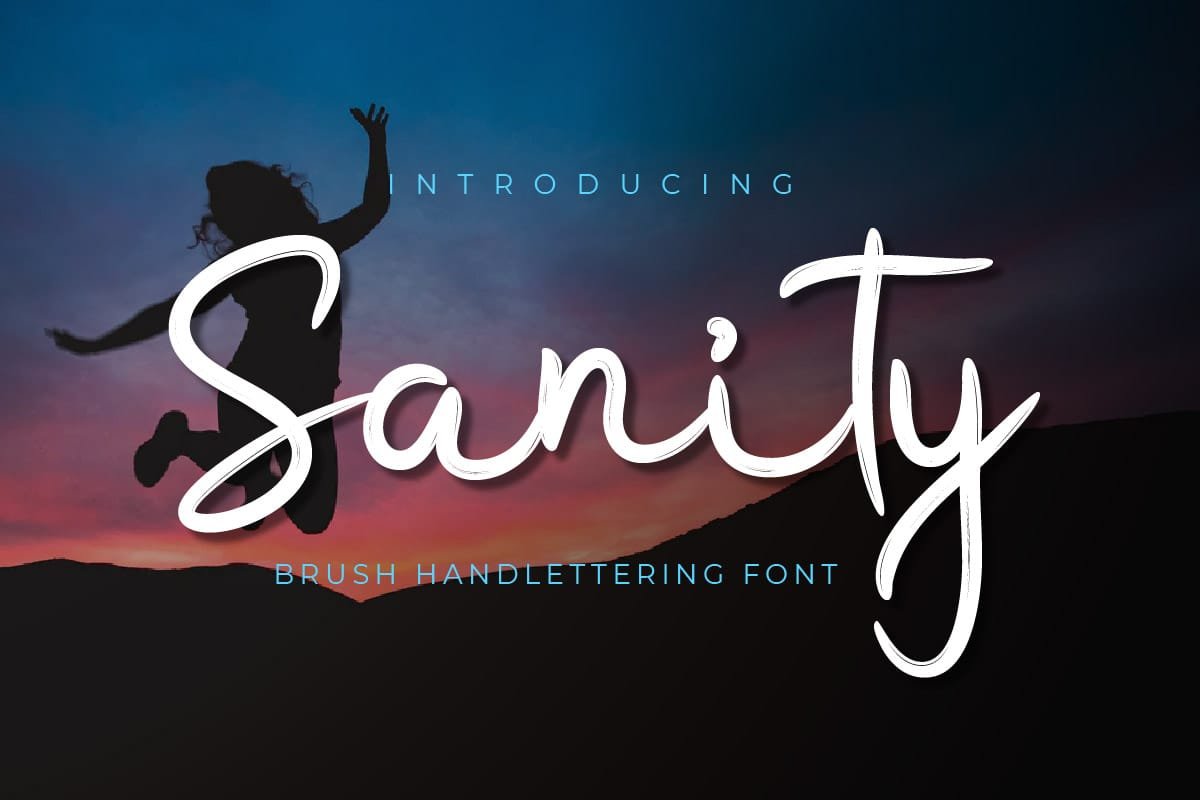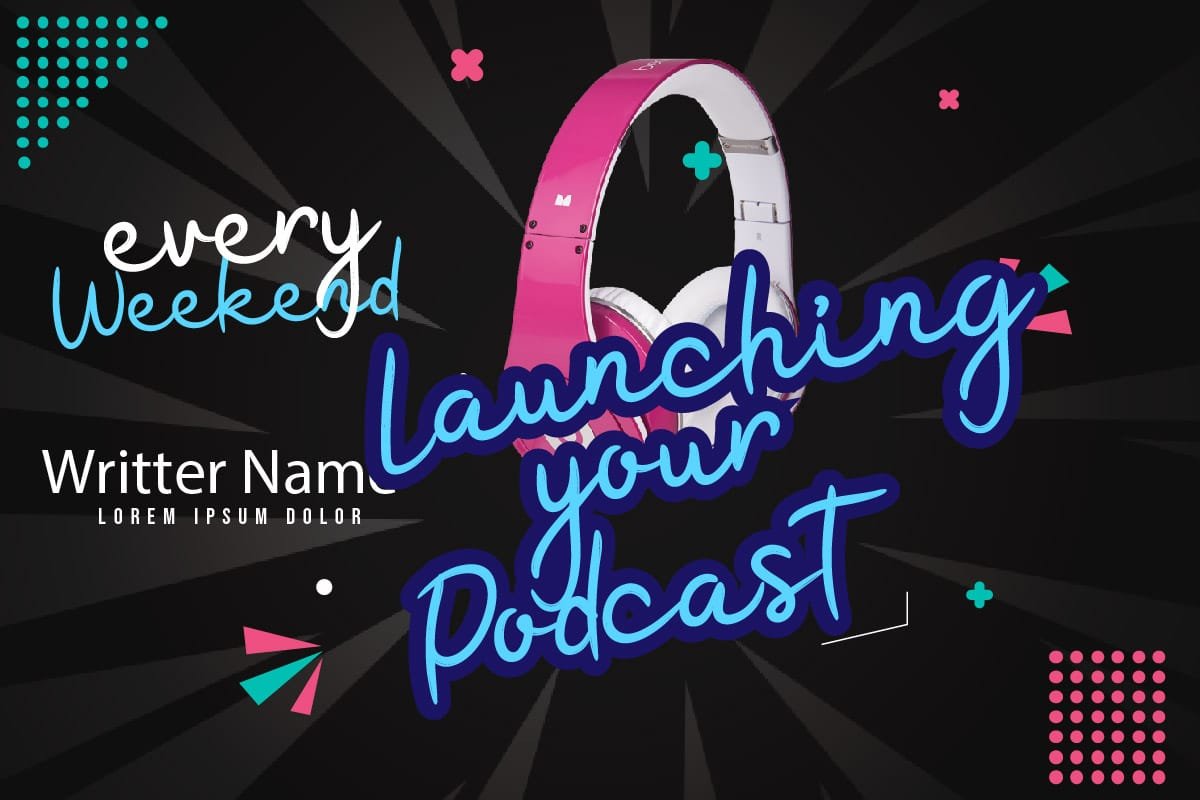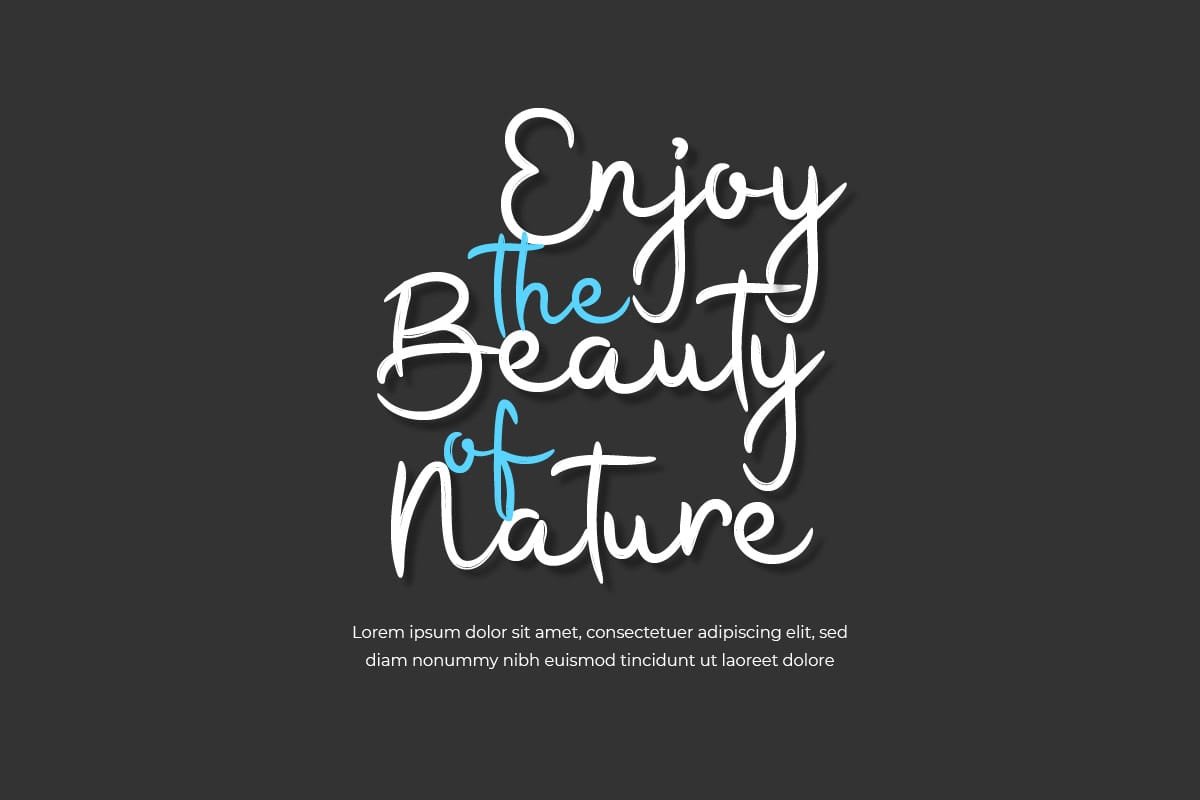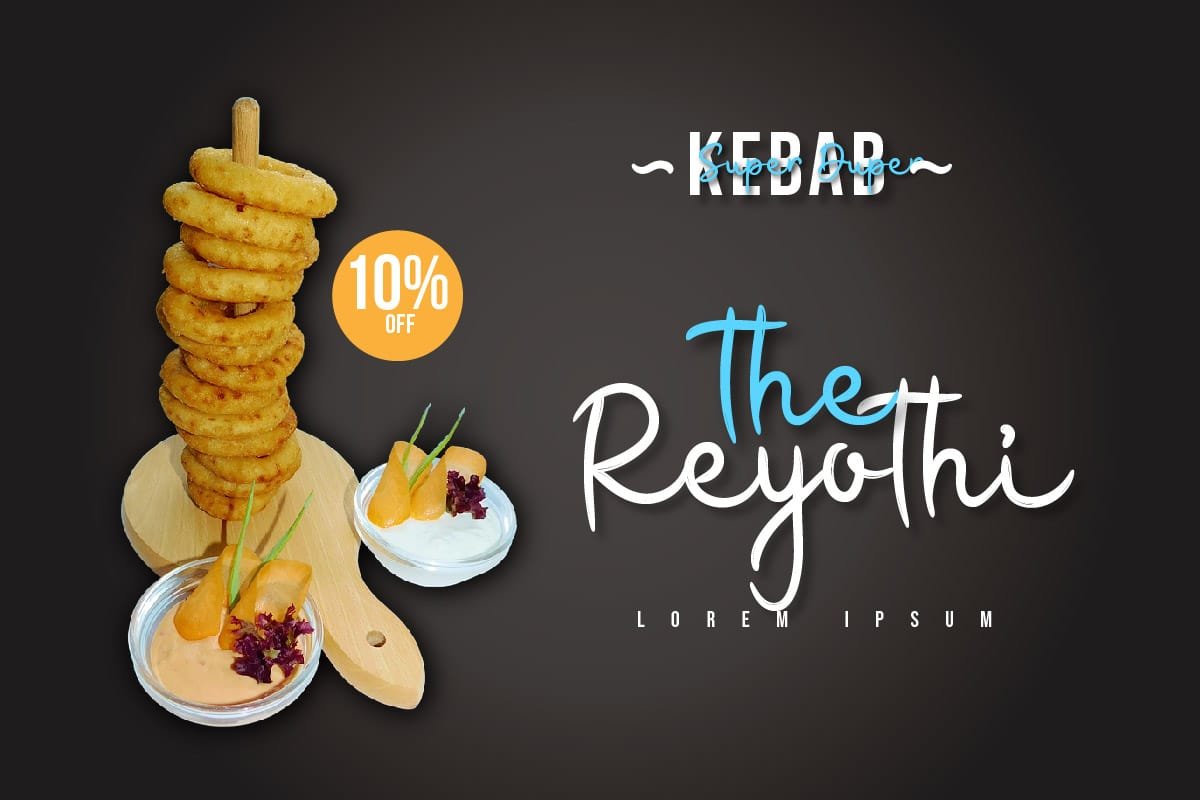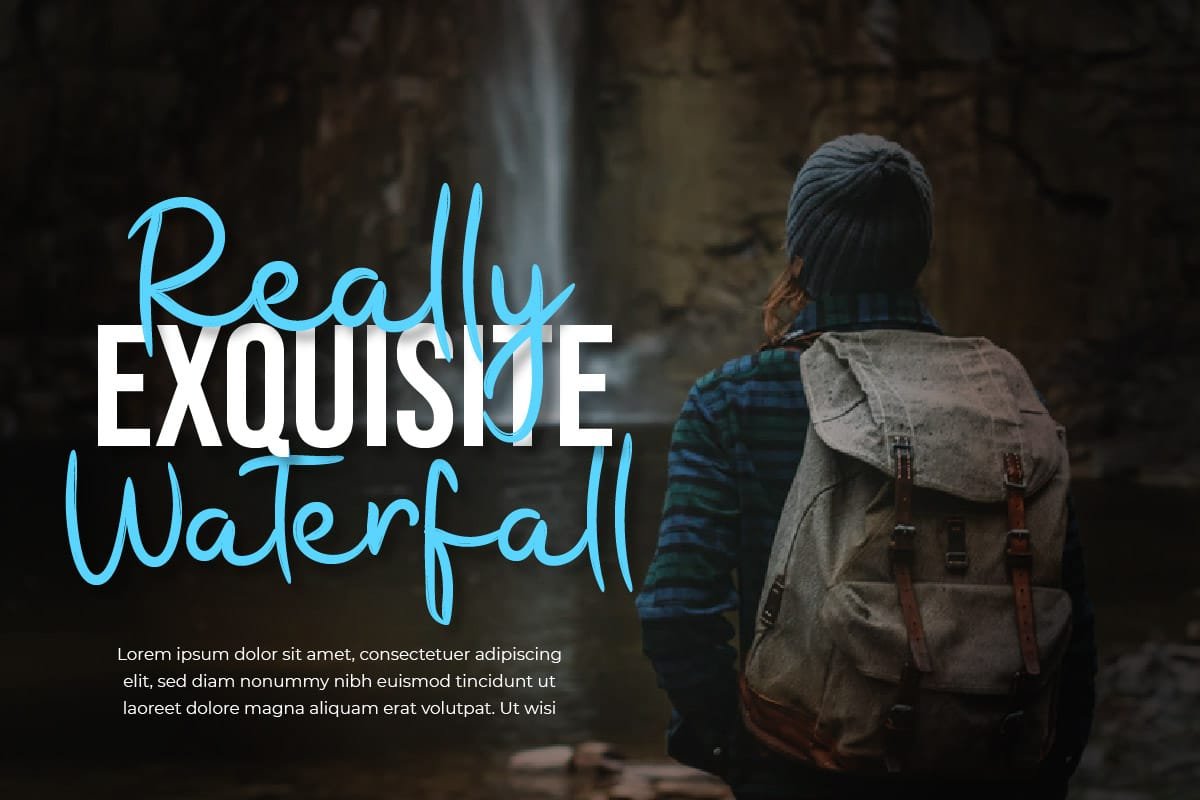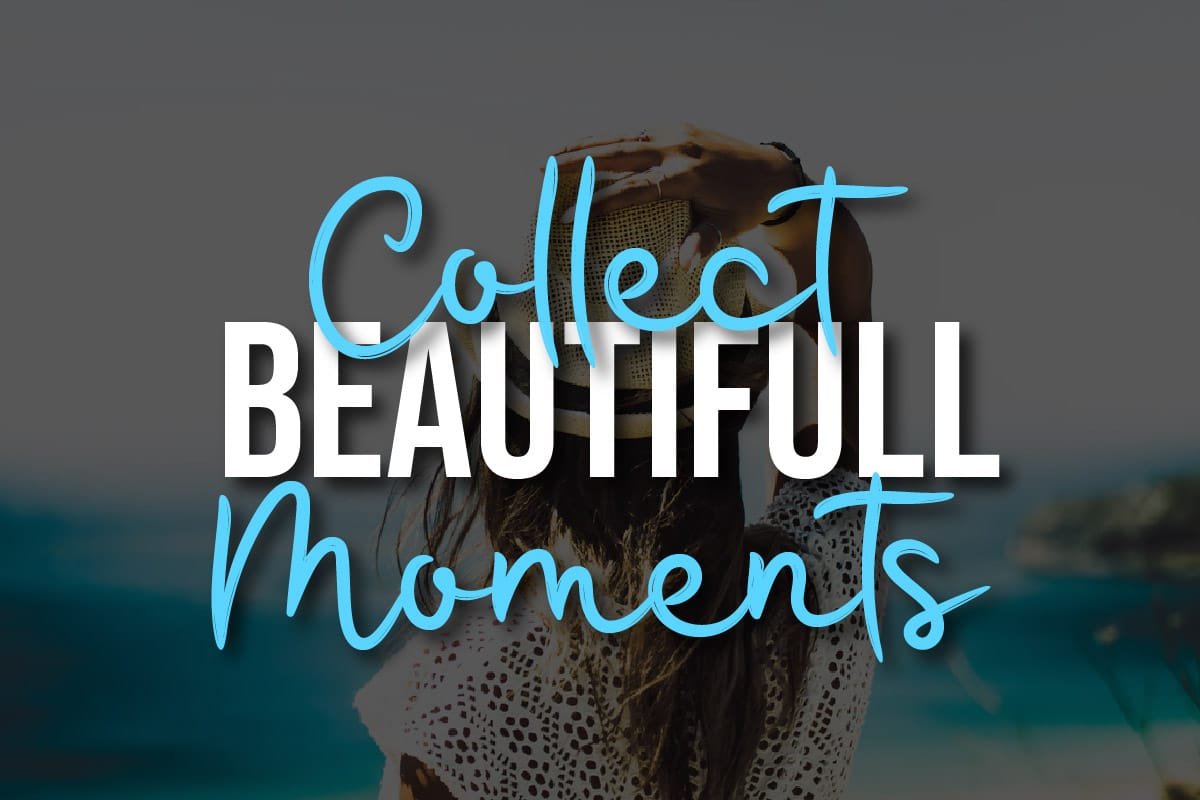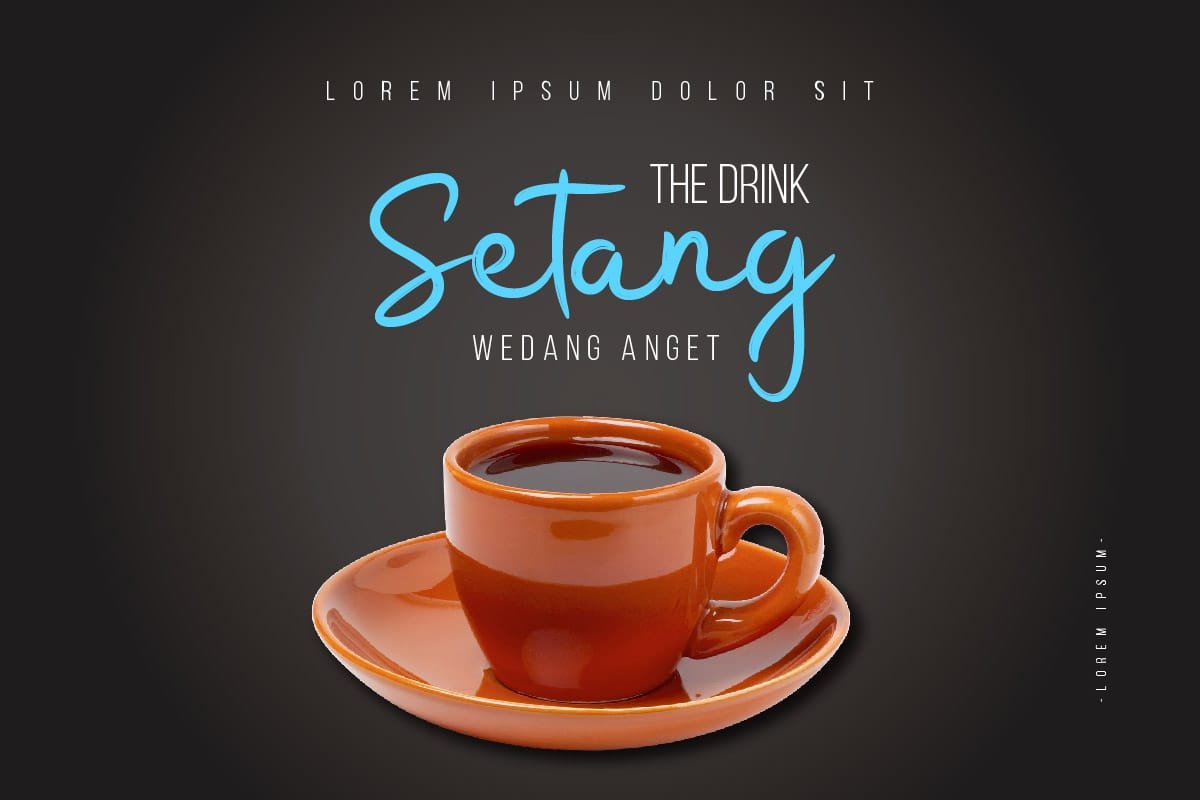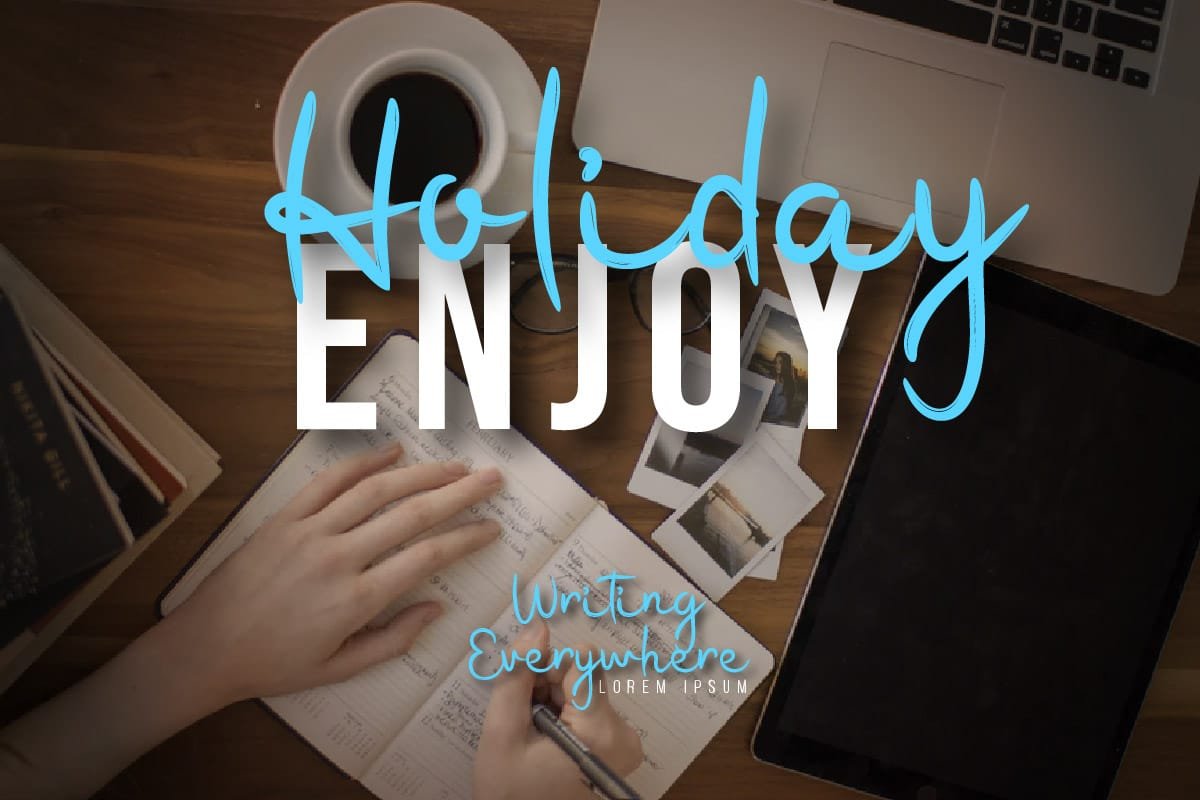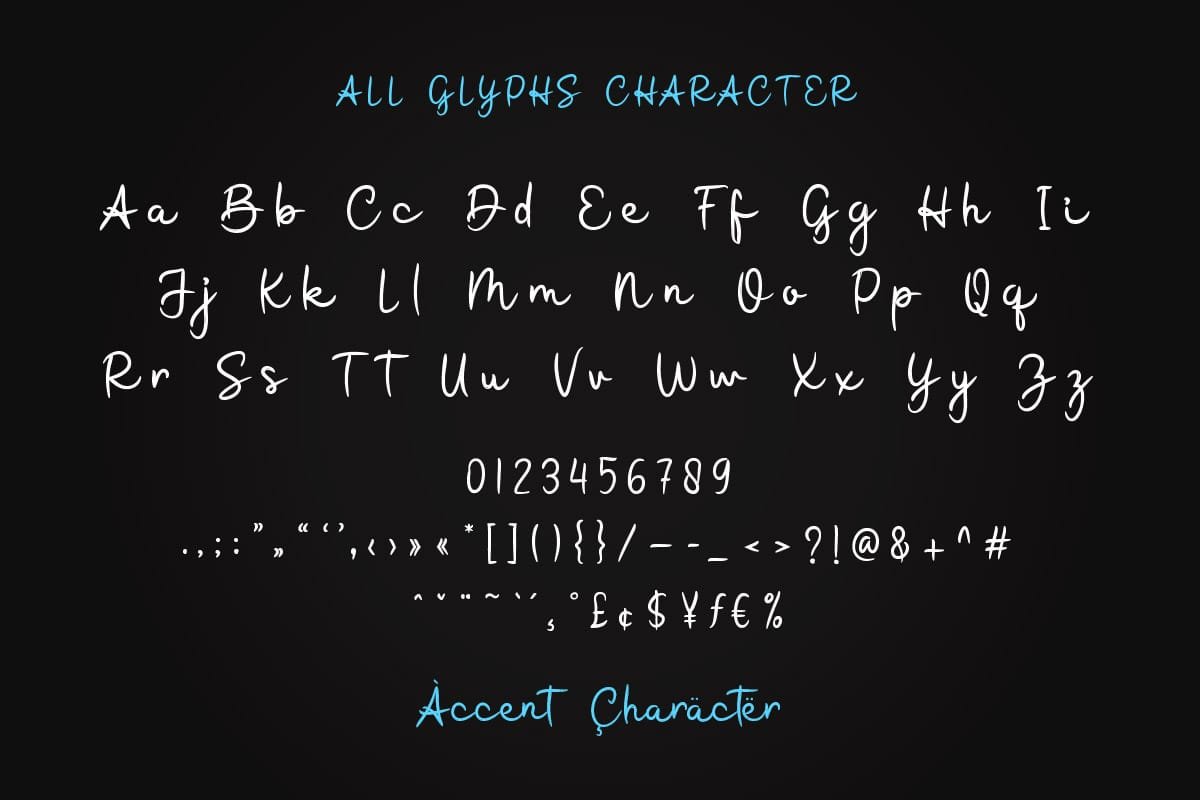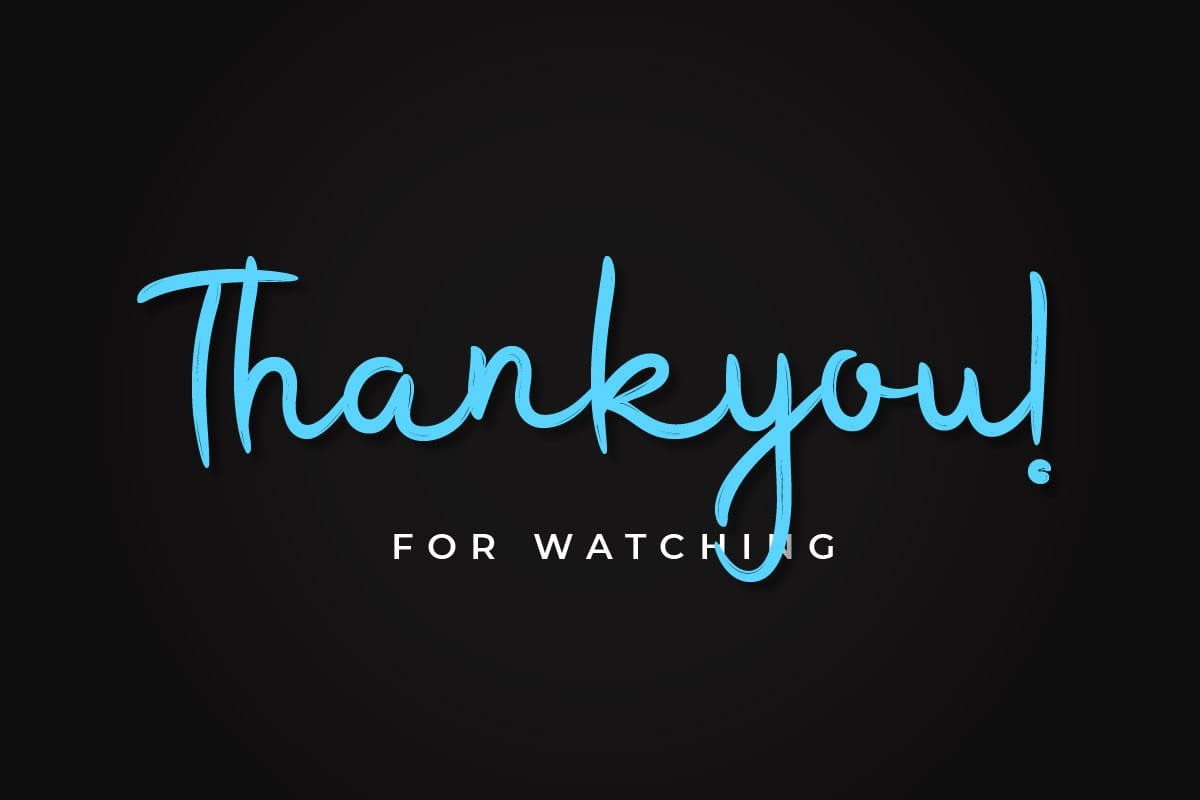
Find inner peace and serenity with Sanity – Brush Handwritten Font. With its soothing strokes and calming design, this font creates a tranquil atmosphere, perfect for projects that aim to evoke a sense of balance and harmony. Whether you’re designing meditation guides, crafting wellness brochures, or creating relaxing social media graphics, Sanity helps your audience find solace in a chaotic world. Embrace calmness and mindfulness with Sanity – the font that’s as soothing as a gentle breeze, guiding your audience towards a state of inner peace and tranquility.